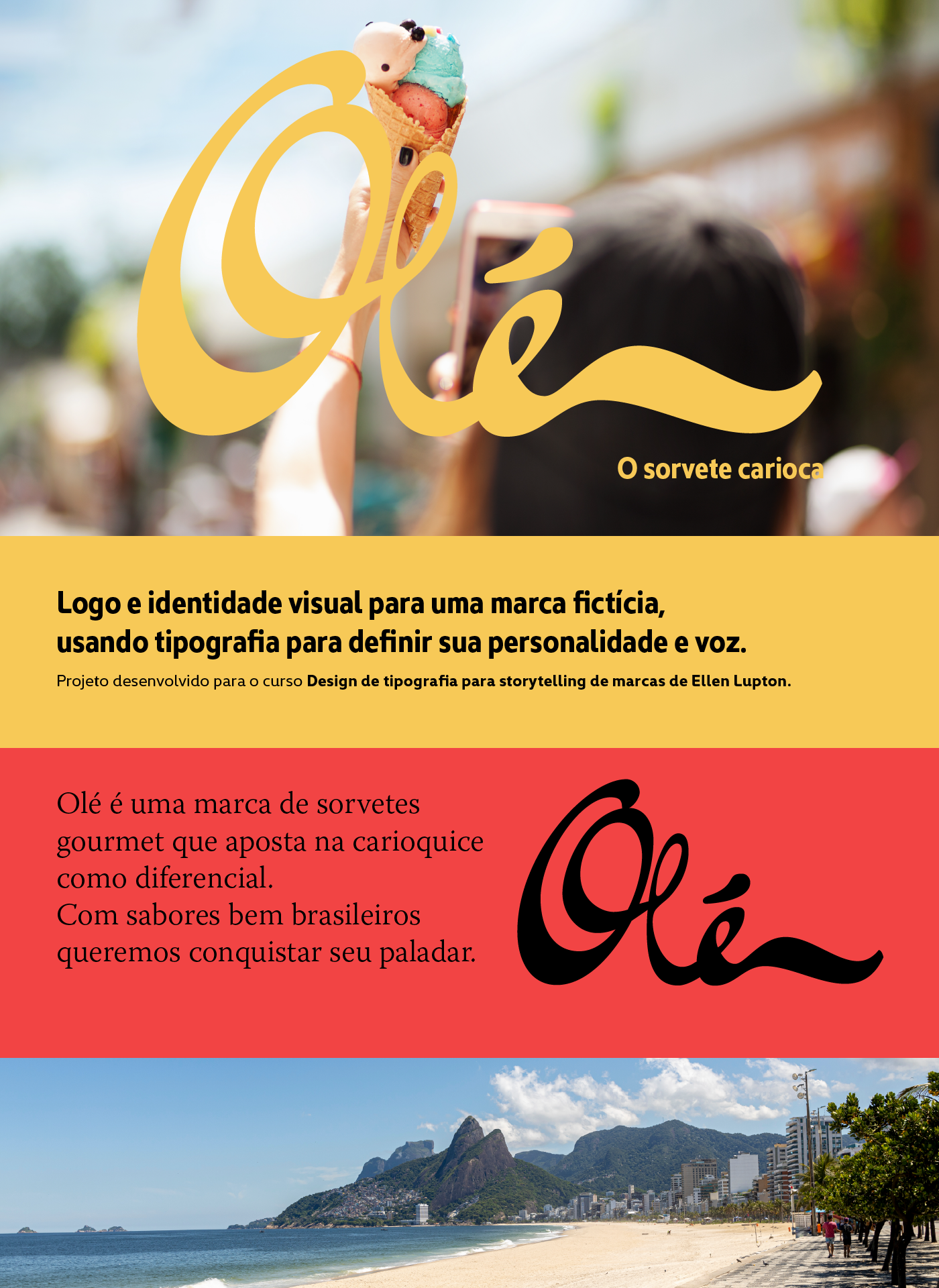
The logo is beautiful. It expresses the fluid quality of ice cream.
Creating a different pattern for each ice cream is a good concept. I love that the patterns are inspired by the architecture and landscape of Brazil.
However, I wonder if the patterns could be more connected to each other in a series. The first two work very well together.
Alterei os dois padrões e acredito que eles estão mais coerentes agora.
Oh yes, it all goes together now! Splendid!